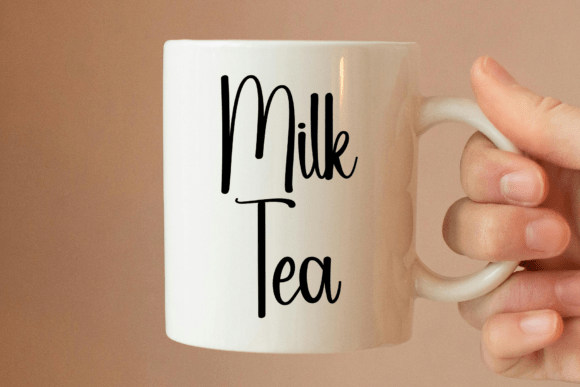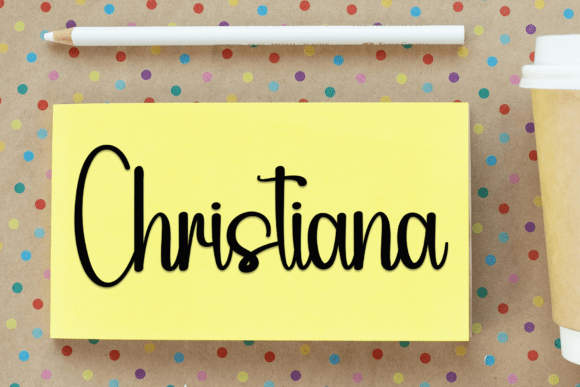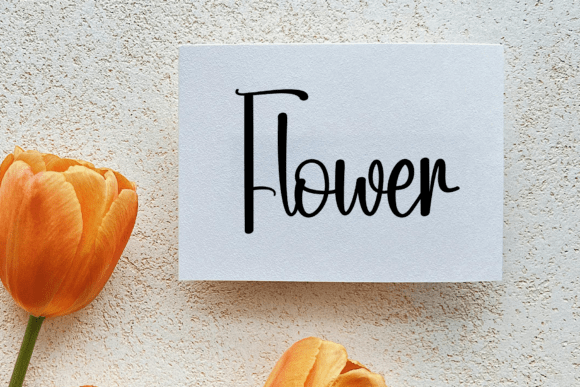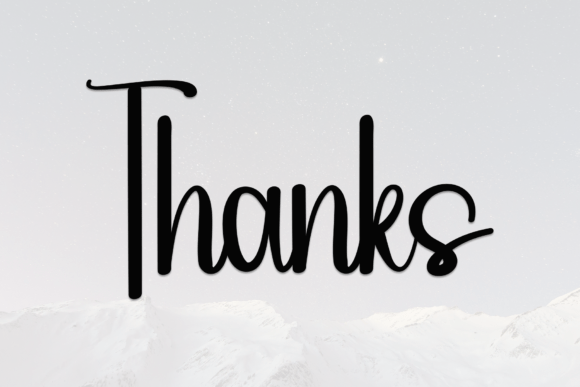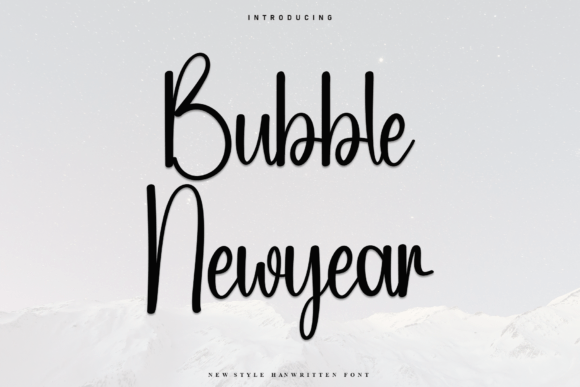
The Perfect Font for a New Year: Discovering Bubble Newyear
As a designer, I’ve had my fair share of late nights scrolling through font libraries, searching for that one perfect typeface to bring my project to life. It was a similar situation when I was working on a New Year’s Eve invitation for a client. I wanted something that exuded warmth, friendliness, and a touch of celebration. That’s when I stumbled upon Bubble Newyear, a charming handwritten font that instantly captured the essence of the festive season.
A Personal Review: What I Love About Bubble Newyear
Bubble Newyear has quickly become one of my go-to fonts for a variety of design projects. Here’s what I love about it:
• ✨ Smooth strokes and organic lines that evoke a relaxed atmosphere
• ✅ Heartfelt perfection: the font’s imperfections make it feel more human and authentic
• 💕 Versatile: suitable for branding, invitations, social media graphics, and more
• 👍 Easy to read: despite its handwritten nature, Bubble Newyear remains legible even at smaller sizes
While Bubble Newyear is an excellent font, it’s not without its quirks:
• 🤔 Limited character set: while it covers the basics, you might find some specialty characters missing
• ⚠️ Not ideal for body text: due to its decorative nature, Bubble Newyear works best as a headline or accent font
The Story Behind Bubble Newyear
Bubble Newyear was designed with the intention of capturing the warmth and joy of the holiday season. Its creator aimed to craft a font that felt both personal and celebratory, making it perfect for New Year’s Eve invitations, Christmas cards, and other festive designs. While the actual design process remains a mystery, it’s clear that Bubble Newyear has become a beloved font among designers and crafters.
Font Name Bubble Newyear Font
Author KC Production
What type of projects is Bubble Newyear best suited for? Bubble Newyear works well for branding, invitations, social media graphics, and other design projects where a personal touch is desired.
Is Bubble Newyear suitable for body text? No, Bubble Newyear is best used as a headline or accent font due to its decorative nature.